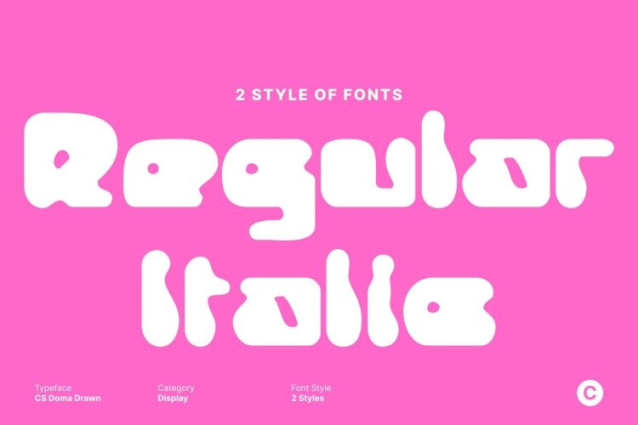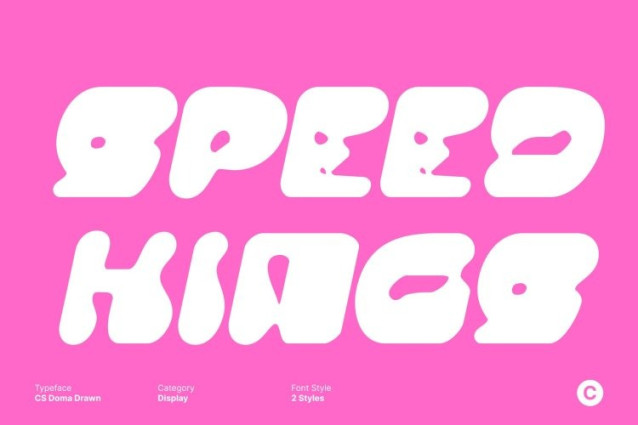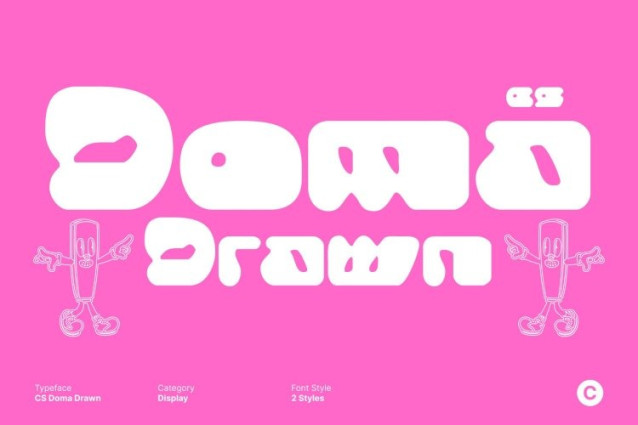
CS Doma Drawn Font
CS Doma Drawn Font This is a bold Y2K display font inspired by the vibrant visual culture of the early 2000s. Its expressive letterforms echo the era’s obsession with digital optimism, futuristic styling, and flashy design language. With shimmering gradient-ready shapes and confident outlines, this font instantly delivers a nostalgic yet forward-looking vibe that feels playful, bold, and unapologetically energetic.
Bold Outlines and Dynamic Forms
Built with strong outlines and chunky proportions, commands attention in any composition. The bold structure makes it highly visible and impactful, especially in large display use. Its dynamic shapes feel alive and kinetic, perfectly capturing the high-energy mood associated with Y2K visuals, pop culture, and early digital experimentation.
Hand-Drawn Texture for Expressive Character
The drawn effect adds an artistic, handmade layer that softens the futuristic edge of the font. Subtle texture and organic imperfections introduce personality and depth, making feel more expressive and less mechanical. This balance between digital boldness and handcrafted detail creates a distinctive visual identity.
Perfect for Digital and Music-Driven Design
This font shines in digital branding, party graphics, music visuals, posters, and experimental layouts. Whether used for club flyers, album artwork, social media graphics, or event promotions, this font brings vibrant energy, playful nostalgia, and a strong visual punch that instantly stands out.